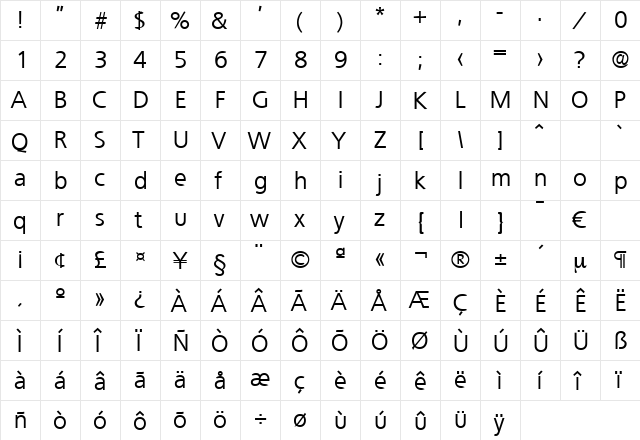
Quebec-Regular Font Preview
Quebec-Regular Regular
Quebec-Regular Font Details
Design Context for Quebec-Regular Typeface
Quebec-Regular takes a measured approach to typography — its balanced proportions and neutral character make it a reliable workhorse for both digital and print work.